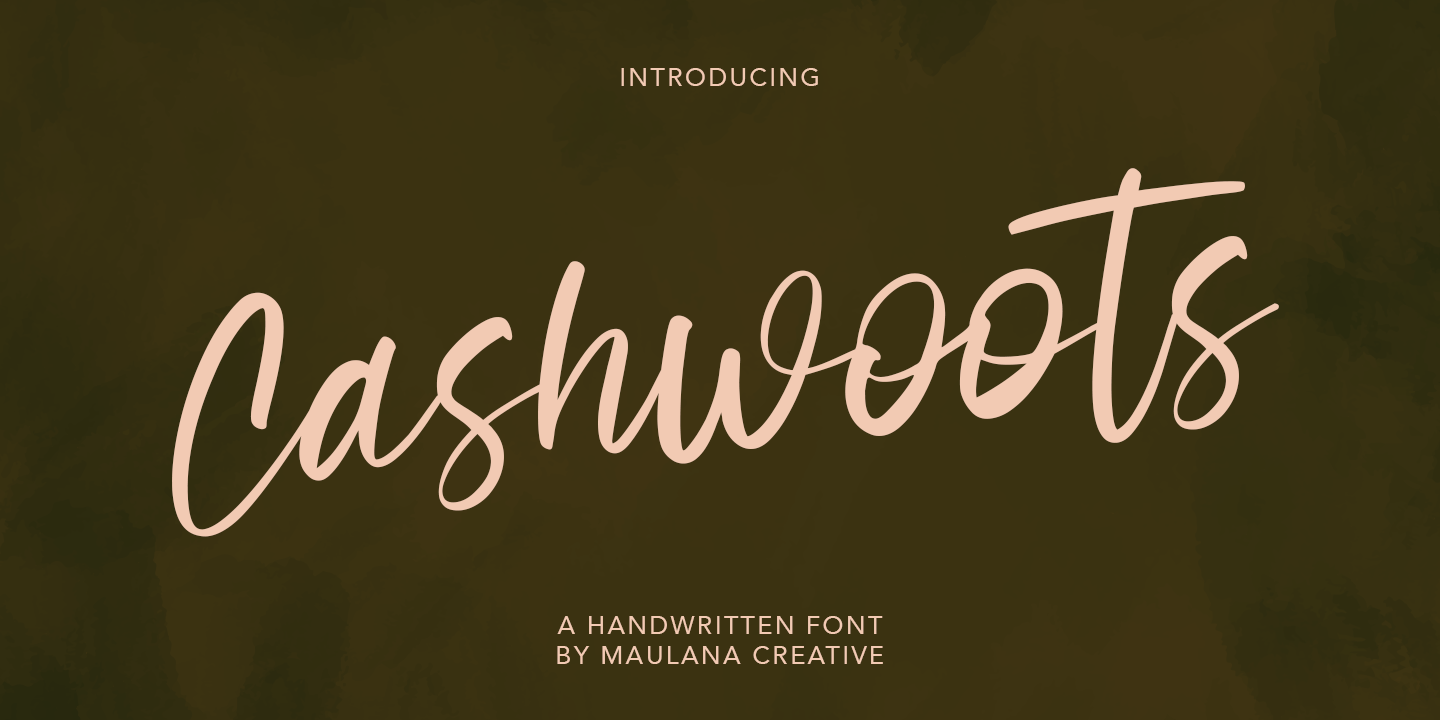
This bold display font is perfect for financial services branding, investment firm logos, cryptocurrency platforms, money management apps, banking advertisements, wealth building campaigns, economic publications, and prosperity-focused design projects that emphasize financial growth and monetary success.
Cashwoots Font is exciting because it embodies financial prosperity with its strong letterforms that radiate confidence and monetary authority through every carefully crafted character. The font delivers wealth-building energy that inspires financial success and investment confidence.
The Cashwoots Font family includes regular and bold versions with finance-themed decorative elements, monetary symbols, and prosperity ornaments, providing designers with comprehensive tools for creating money-smart typography that builds financial trust.
Ready to grow your financial brand? Cashwoots Font Free Download offers designers powerful letterforms that flourish with monetary confidence and investment authority. This prosperous typeface combines financial aesthetics with professional functionality, making it ideal for banks, investment firms, and fintech companies. Whether you're designing investment portfolios, financial app interfaces, or wealth management brochures, this font delivers trustworthy results. The financially engineered characters feature prosperity-driven design while maintaining excellent readability across monetary applications. Perfect for businesses in banking, investment, cryptocurrency, and financial planning that value growth and monetary success. The font's cash-rich construction creates memorable brand recognition that resonates with financially-minded audiences worldwide. Each letter showcases deliberate prosperity that mirrors the rewarding potential of smart financial decisions. Download today and invest in success with your creative projects using this premium display font that transforms ordinary text into extraordinary expressions of financial excellence and the wealth-building power of Cashwoots Font Free Download prosperity.